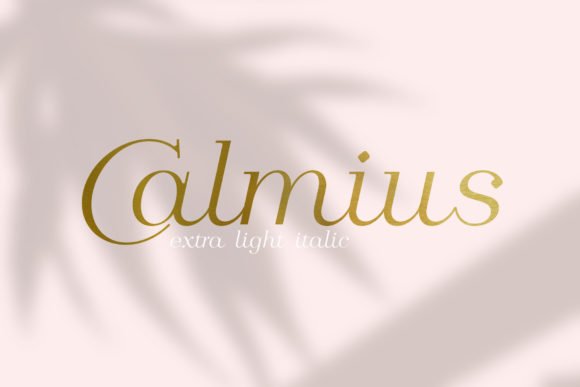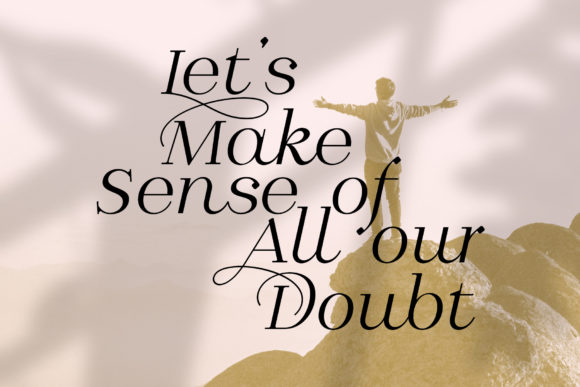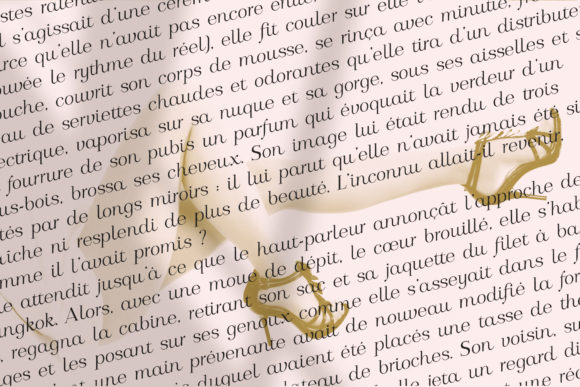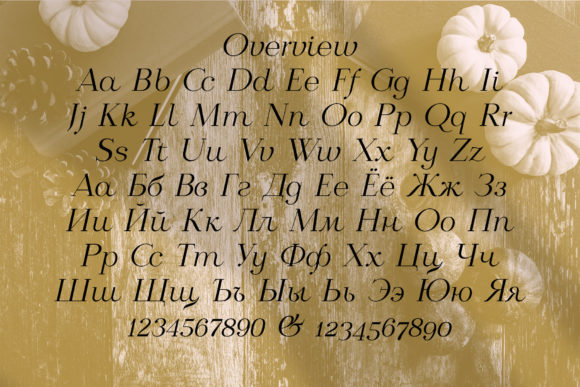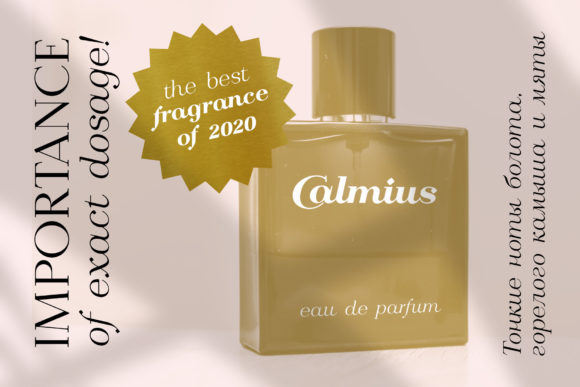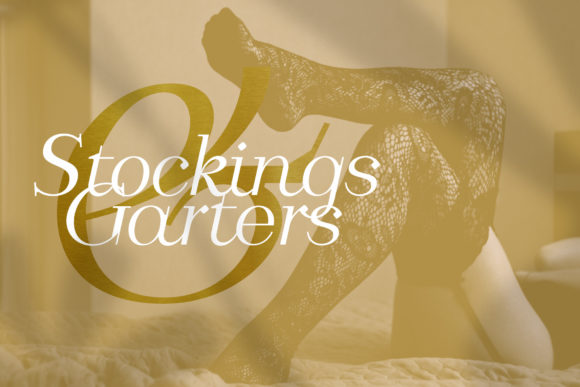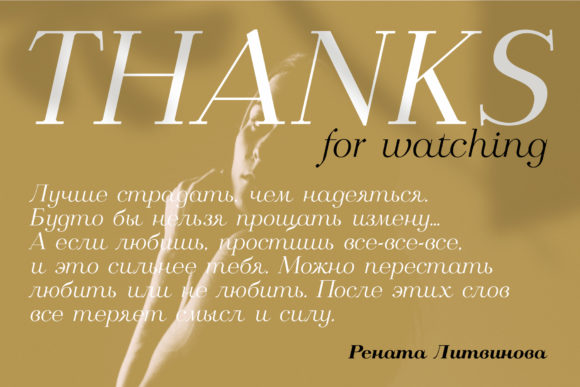
The Perfect Harmony: Discovering the Calmius Font
As a designer, there’s nothing quite like that moment when everything falls into place – the perfect balance of colors, the ideal typography, and a sense of calm that washes over you. It’s a feeling that’s hard to describe, but it’s the reason why we create in the first place. And for those moments when you’re searching for the perfect font to bring your vision to life, we’d like to introduce you to the elegant Calmius Font.
This beautiful serif typeface is more than just a pretty face – it’s a valuable tool for designers looking to create stunning logos, branding, and packaging designs. With its neat and beautiful arrangement of letters, the Calmius Font is the perfect addition to any project, whether you’re going for a formal or non-formal look.
Calmius Font Key Features
- Size: The font comes in multiple weights, ranging from Light to Bold, providing flexibility for various design applications.
- Unique Characteristics: This font features a modern, elegant design with subtle curves and clean lines, making it perfect for creating a sophisticated and calming atmosphere in designs.
- Language Support: Calmius Font supports a wide range of languages, including Latin-based languages, Cyrillic, and Greek, making it a versatile choice for global design projects.
- Font Metrics: The font’s x-height and cap height are carefully designed to ensure readability and balance, creating a harmonious visual experience.
Calmius Font Review
I recently had the chance to work with the Calmius Font, and I must say it’s an interesting addition to the world of typography. Let’s dive in and see what it has to offer.
- Calm and soothing feel: The font does an excellent job of evoking a sense of calmness, making it perfect for applications where relaxation is key.
- Unique character set: The Calmius Font has a distinct character set that sets it apart from more common fonts, adding a touch of personality to your designs.
- Legibility: The font is well-designed and easy to read, even at smaller font sizes.
- Flexibility: The Calmius Font may not be the best choice for projects that require a lot of flexibility, as it’s a bit limited in terms of styles and weights.
- Readability at small sizes: While the font is generally easy to read, it can become a bit fuzzy at extremely small font sizes.
- Not ideal for bold or dramatic designs: The Calmius Font is best suited for calm and soothing designs, and may not be the best choice for projects that require a bolder or more dramatic feel.
Overall, I think the Calmius Font is a solid addition to any designer’s toolkit, but it’s not a one-size-fits-all solution. Use it for the right projects, and it will shine.
The Calmius Font is ideal for:
- Designing calming and soothing visual content.
- Creating professional and elegant typography.
- Designing packaging, branding, and marketing materials.
Tips for Getting the Most Out of Calmius Font
To get the most out of the Calmius Font, follow these tips:
- Pair the font with complementary colors to enhance its calming effect.
Alternatives to Calmius Font
Lato is a modern sans-serif font that is highly legible and suitable for body text. It’s perfect for websites, apps, and other digital platforms where a clean and simple design is required.
Compared to Calmius Font, Lato has a more modern and sleek look, making it ideal for contemporary designs. It’s also highly customizable, with many font weights and styles available.
Open Sans is a clean and modern sans-serif font that is highly legible and suitable for body text. It’s perfect for websites, apps, and other digital platforms where a clear and simple design is required.